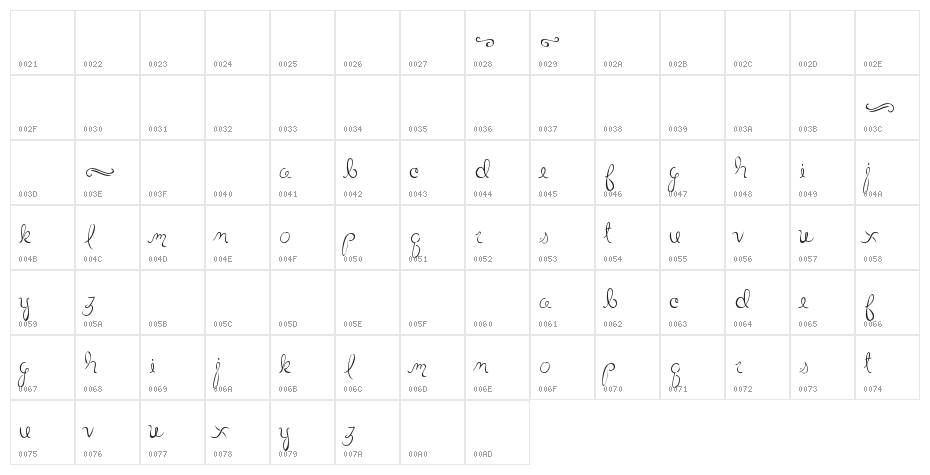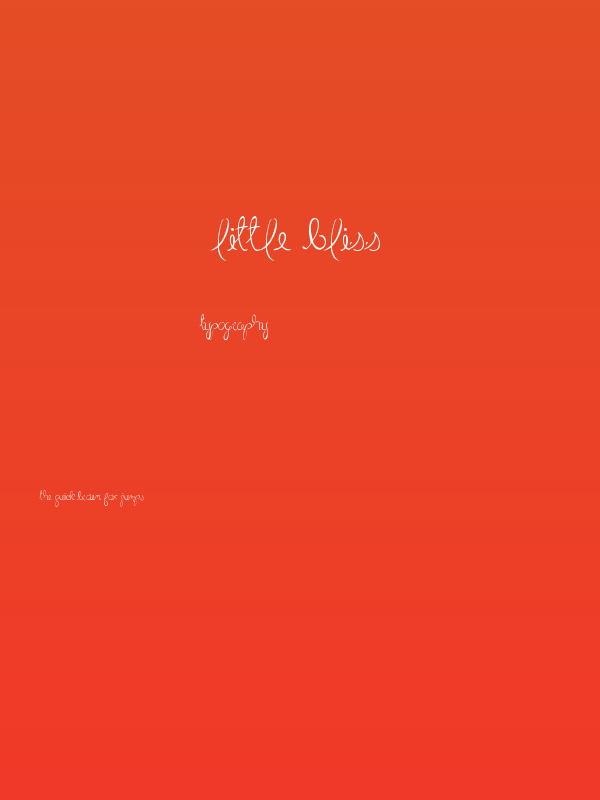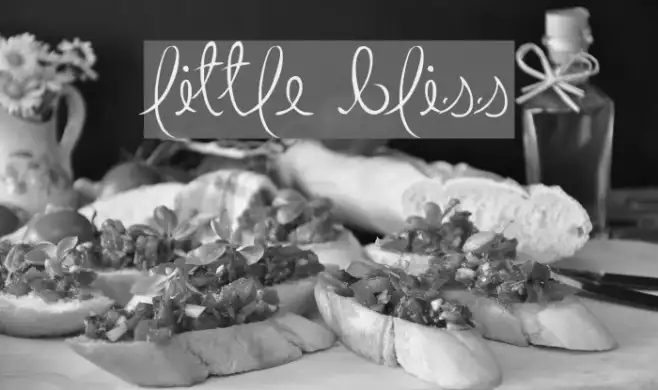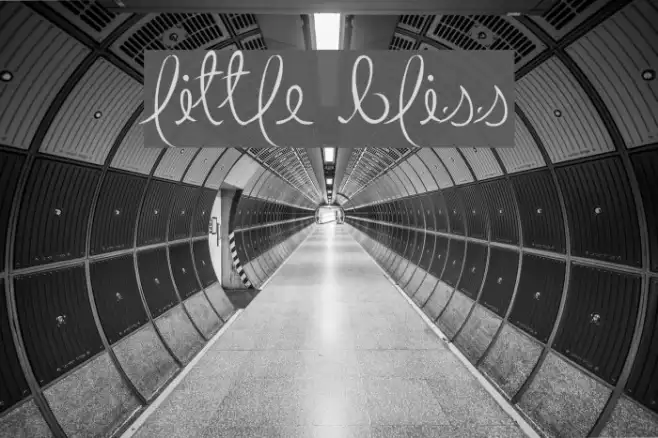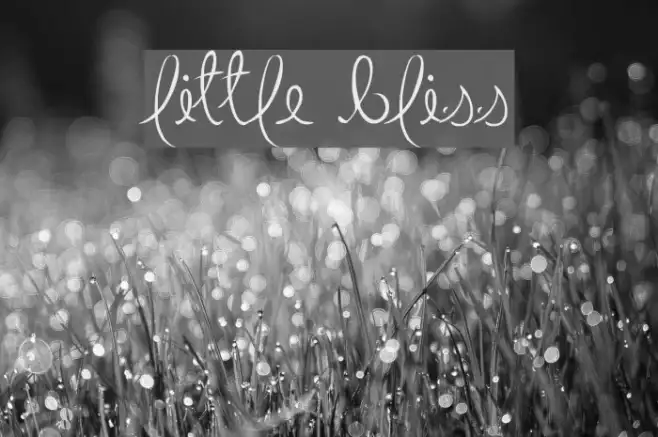
Little Bliss Font
Little Bliss Description
This font exudes a whimsical and playful charm, characterized by its flowing, cursive style. The letters are intricately designed with loops and swirls, giving it a hand-drawn, artistic feel. The strokes vary in thickness, adding a dynamic and lively touch to the text. The overall appearance is both elegant and informal, making it suitable for creative and expressive projects. The font maintains a consistent baseline, while the ascenders and descenders extend gracefully, enhancing its decorative appeal.
| Use Case | Logos, Invitations, Artistic Branding |
| Proposed Projects | Ideal for invitations, greeting cards, artistic branding, and creative projects. |